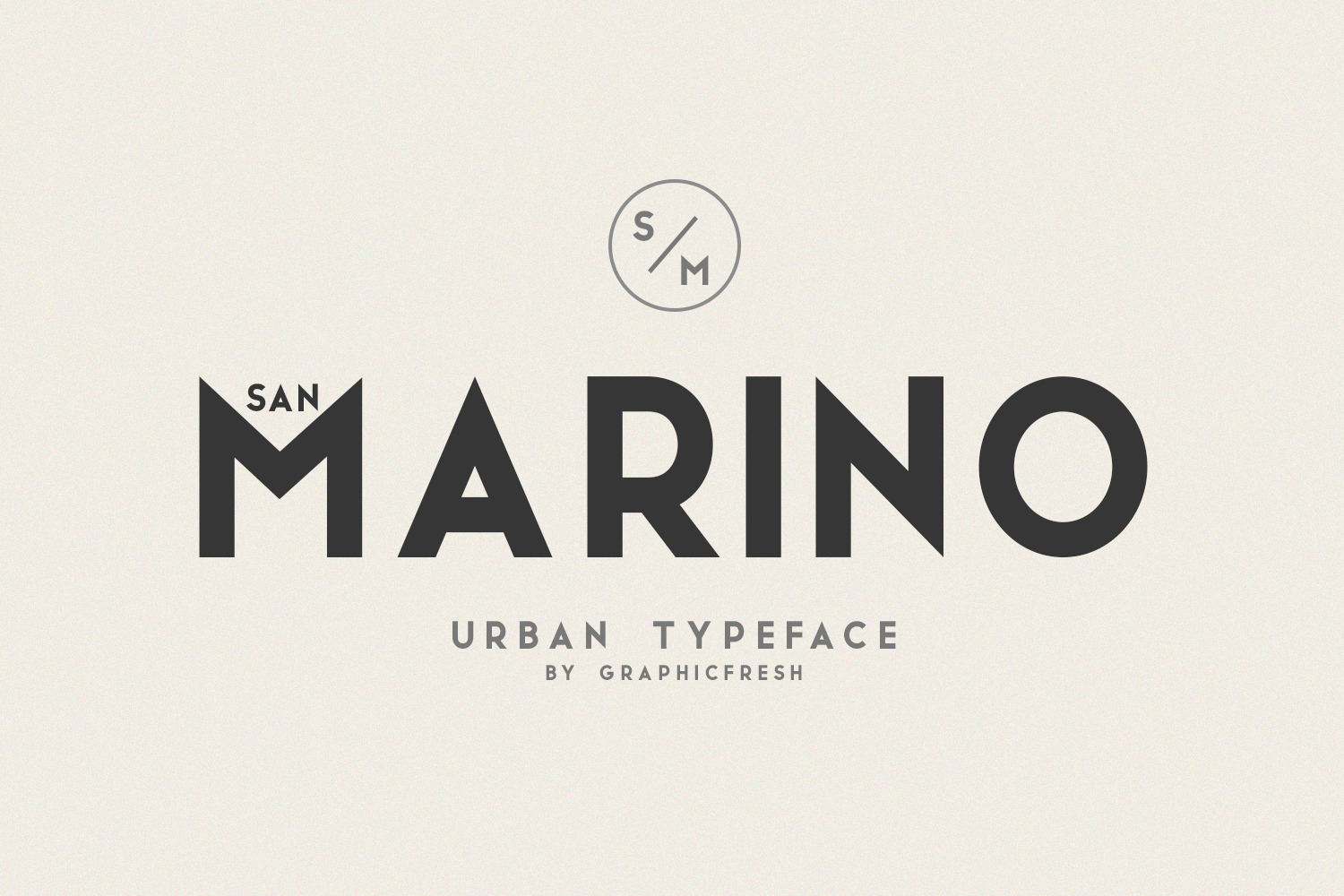
San Marino is an original Sans Serif font that was improved with geometric shapes. It exudes an image of modernity, stylishness, and elegance.
It offers four styles. As for OpenType features, it comes with an extended set of characters to support for Western European languages.
1. San Marino - A clean Regular, outline and Italic version, sans serif font including upper & lowercase characters (ALL CAPS), numerals and more of symbols.
2. Multilingual support for various languages